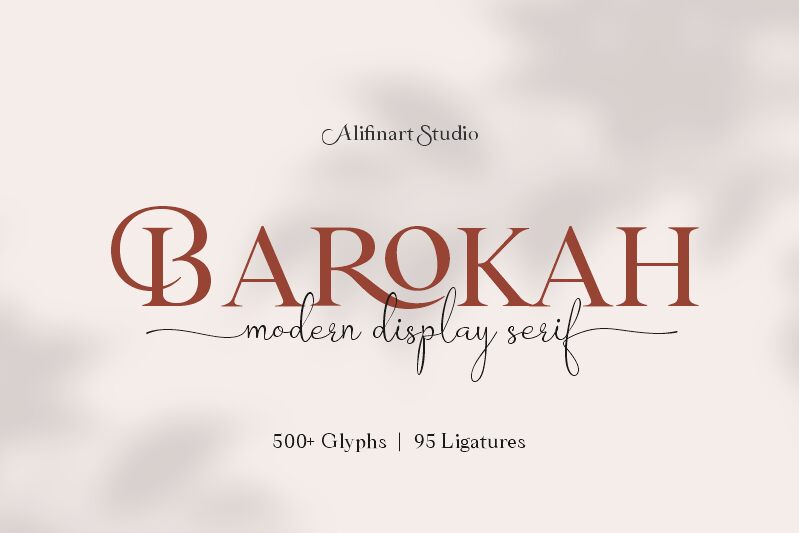
Barokah Serif Font, designed by Alifinart Studio, is the epitome of luxury and casual style. With its modern display and abundance of ligatures for both uppercase and lowercase letters, this serif font is perfect for a wide range of projects.
Whether you're designing a high-end fashion brand, an elegant wedding invitation, or a sophisticated magazine layout, Barokah Serif Font will bring your creativity to life. Its refined and timeless appeal will captivate your audience and elevate your designs to new heights.
Embrace the elegance of Barokah Serif Font and make every project shine with sophistication.
Typeface Story
In 2021, we released Barokah Script and at that time a lot of people loved it. However, we feel that Barokah Script should be combined with a serif font with a luxurious and casual style, so that it will become a popular for everyone.
That's why, todayafter 1 yearwe are releasing Barokah Serif, as the best match for Barokah Script.
Why Barokah Serif Font?
Barokah Serif is a font with a myriad of ligatures, both uppercase and lowercase. In this font, there are Stylistic Alternates for each capital letter with an authentic and elegant design.
In the lowercase letters you will find an amazing variety of ligatures and in a luxurious style. This will make each of your designs look elegant and classy. For ease of use, we divide it into two; Standard and Discretionary Ligatures.
Features:
- Uppercase and lowercase letters
- Numbers and punctuation
- Lots of ligatures for uppercase and lowercase
- Stylistic Alternates for each capital letter
- True type hinting
- Multilingual
Standard and Discretionary Ligatures
Standard and Discretionary Ligatures are available for the following letter combinations:
LA LI LU LE LO LL RA RI RU RE RO KA KI KU KE KO XA XI XU XE XO ZA ZI ZU ZE ZO RS AS MS KS HS EV EW DO OC OG DG OO OQ TT NN WWW SS
Th fi ff ffi fj ffj ft fl ffl fb ffb fh ffh fk ffk ſi ſſ ſſi ſl ſſl ſt ct st tt an ah am ap ar ab en eh em ep er eb cn ch cm cp cr cb un uh um up u rub gi gj ti tti tj ss ri rj www
Barokah Serif
BAROKAH FONT DUO
Do you want to create a design with a luxurious and casual style? Barokah Serif Font is the best choice. This is a modern display font has a lot of ligature for uppercase and lowercase. This serif font are perfect for luxury projects and will keep your creativity flowing.
TYPEFACE STORY
In 2021, we released Barokah Script and at that time a lot of people loved it. However, we feel that Barokah Script should be combined with a serif font with a luxurious and casual style, so that it will become a popular font for everyone.
That's why, todayafter 1 yearwe are releasing Barokah Serif, as the best match for Barokah Script.
Thus, these two fonts were merged into one with the name Barokah Font Duo.
WHY BAROKAH SERIF FONT?
Barokah Serif is a font with a myriad of ligatures, both uppercase and lowercase. In this font, there are Stylistic Alternates for each capital letter with an authentic and elegant design.
In the lowercase letters you will find an amazing variety of ligatures and in a luxurious style. This will make each of your designs look elegant and classy. For ease of use, we divide it into two; Standard and Discretionary Ligatures.
FEATURES
- Uppercase and lowercase letters
- Numbers and punctuation
- Lots of ligatures for uppercase and lowercase
- Stylistic Alternates for each capital letter
- True type hinting
- Multilingual
STANDARD AND DISCRETIONARY LIGATURES
Standard and Discretionary Ligatures are available for the following letter combinations:
LA LI LU LE LO LL RA RI RU RE RO KA KI KU KE KO XA XI XU XE XO ZA ZI ZU ZE ZO RS AS MS KS HS EV EW DO OC OG DG OO OQ TT NN WWW SS
Th fi ff ffi fj ffj ft fl ffl fb ffb fh ffh fk ffk i  i l l t ct st tt an ah am ap ar ab en eh em ep er eb cn ch cm cp cr cb un uh um up u rub gi gj ti tti tj ss ri rj